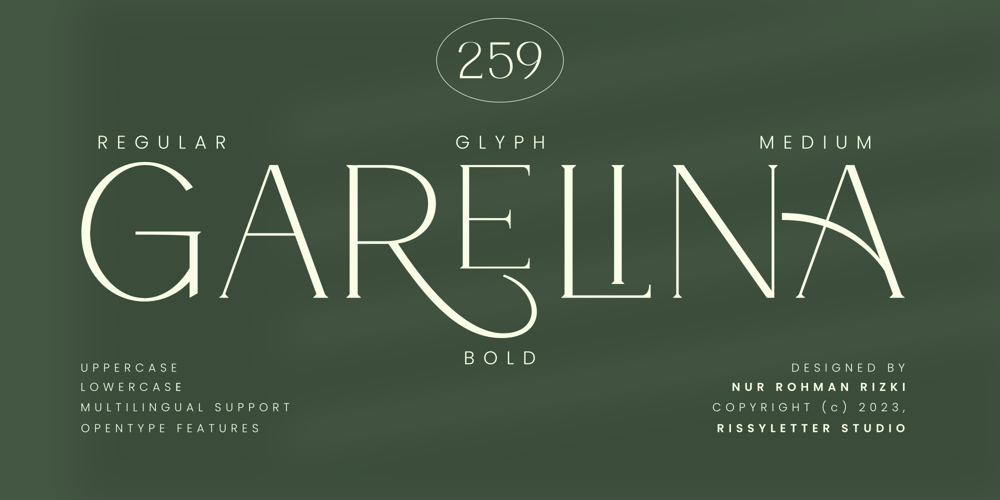
Garelina
Garelina font
Garelina Font Family was designed by Nur Rohman Rizki and published by Riasyletter_Studio. Garelina contains 3 styles and family package options. Looking for a minimalist and luxurious serif font for logos, web design, clothing promotions, brochures, and more? Garelina is the answer. This font has thin and smooth lines that make it look elegant and luxurious.Garelina is perfect for branding and promotion purposes. With its delicate typography, this font can add aesthetic value to your design. Garelina also has several letter variants making it easy to use for various design types.With Garelina, you can create minimalist designs that still look luxurious and elegant. This font is perfect for companies that want to display a professional and stylish image.Do not hesitate to try Garelina on your design now. You will be surprised how easy it is to make elegant and luxurious designs with this serif font. Garelina, the elegant and luxurious serif font for your branding needs.What’s Included : – Garelina OTF – More than 250 of glyphs (include Uppercase, Lowercase, Numerals & Punctuations,Ligatures and Stylistic) – Multilingual support – Works on PC & Mac – Simple installations – Accessible in the Adobe Illustrator, Adobe Photoshop, Adobe InDesign, even work on Microsoft Word. – PUA Encoded Characters (fully accessible without additional design software)Support For Language :Albanian, Basque, Breton, Chamorro, Danish, Dutch, English, Finnish, French, Frisian, Galician, German, Italian, Malagasy, Norwegian, Portuguese, Spanish, Alsatian, Aragonese, Arapaho, Arrernte, Asturian, Aymara, Bislama, Cebuano, Corsican, Fijian, French_creole, Genoese, Gilbertese, Greenlandic, Haitian_creole, Hiligaynon, Hmong, Hopi, Ibanag, Iloko_ilokano, Indonesian, Interglossa_glosa, Interlingua, Irish_gaelic, Jerriais, Lojban, Lombard, Luxembourgeois, Manx, Mohawk, Norfolk_pitcairnese, Occitan, Oromo, Pangasinan, Papiamento, Piedmontese, Potawatomi, Rhaeto-romance, Romansh, Rotokas, Sami_lule, Samoan, Sardinian, Scots_gaelic, Seychelles_creole, Shona, Sicilian, Somali, Southern_ndebele, Swahili, Swati_swazi, Tagalog_filipino_pilipino, Tetum, Tok_pisin, Uyghur_latinized, Volapuk, Walloon, Warlpiri, Xhosa, Yapese, Zulu, Latinbasic, Ubasic, Demo